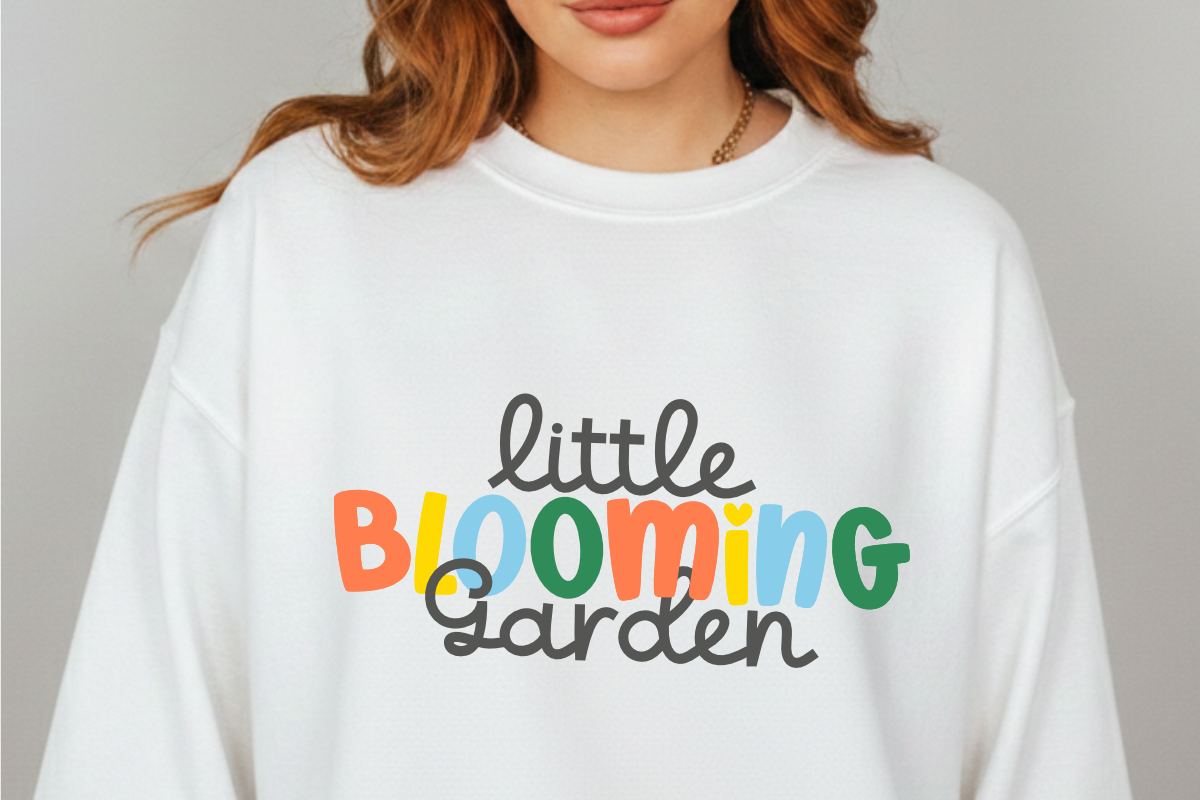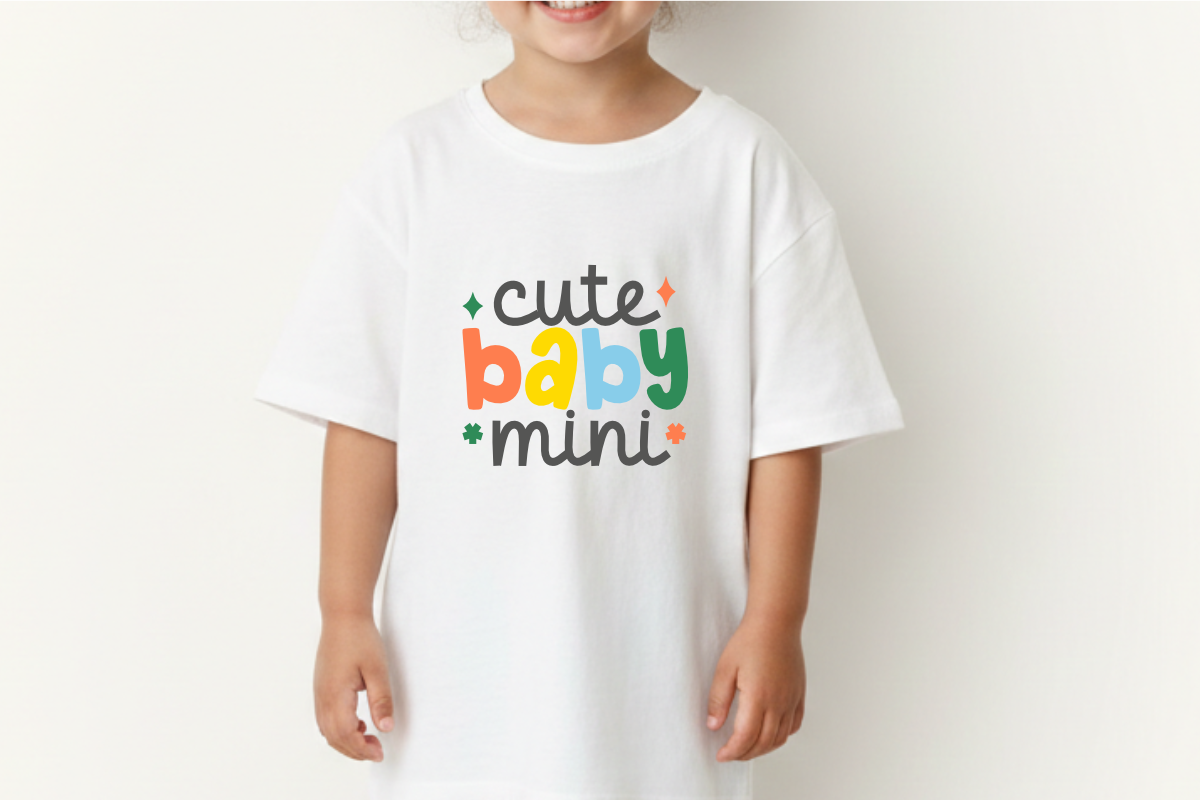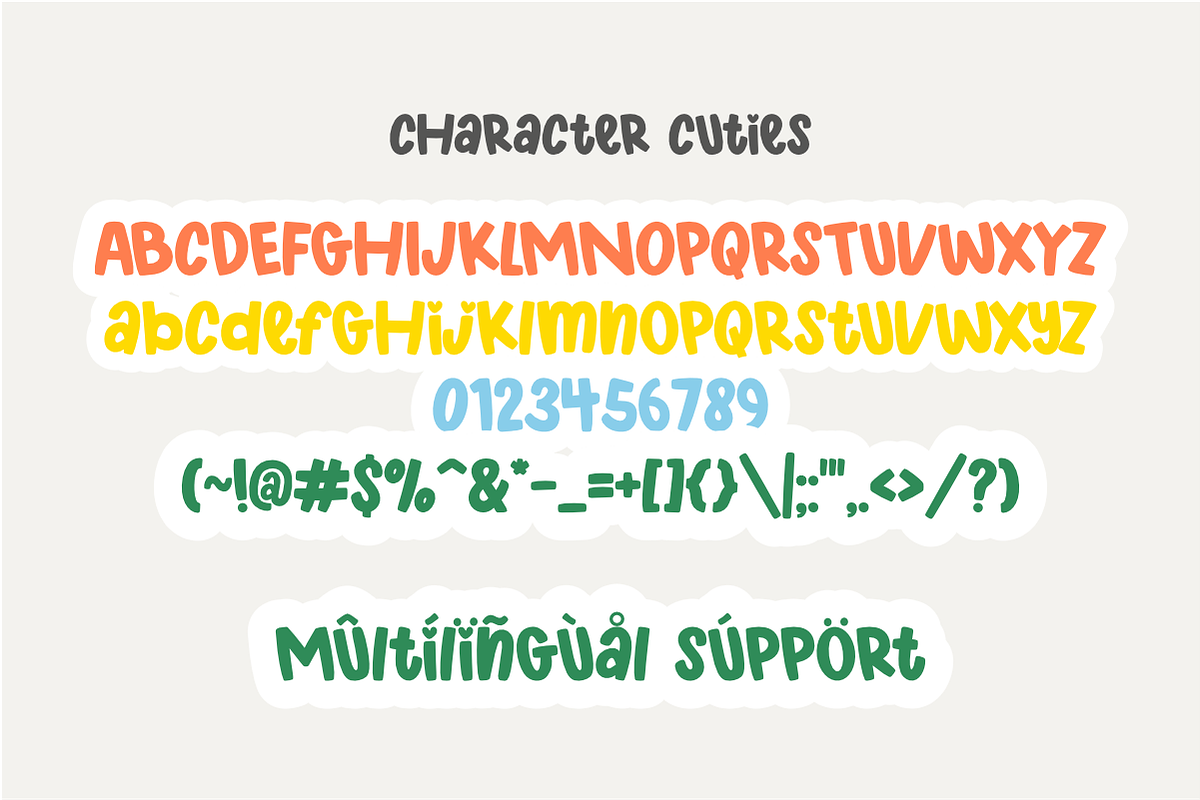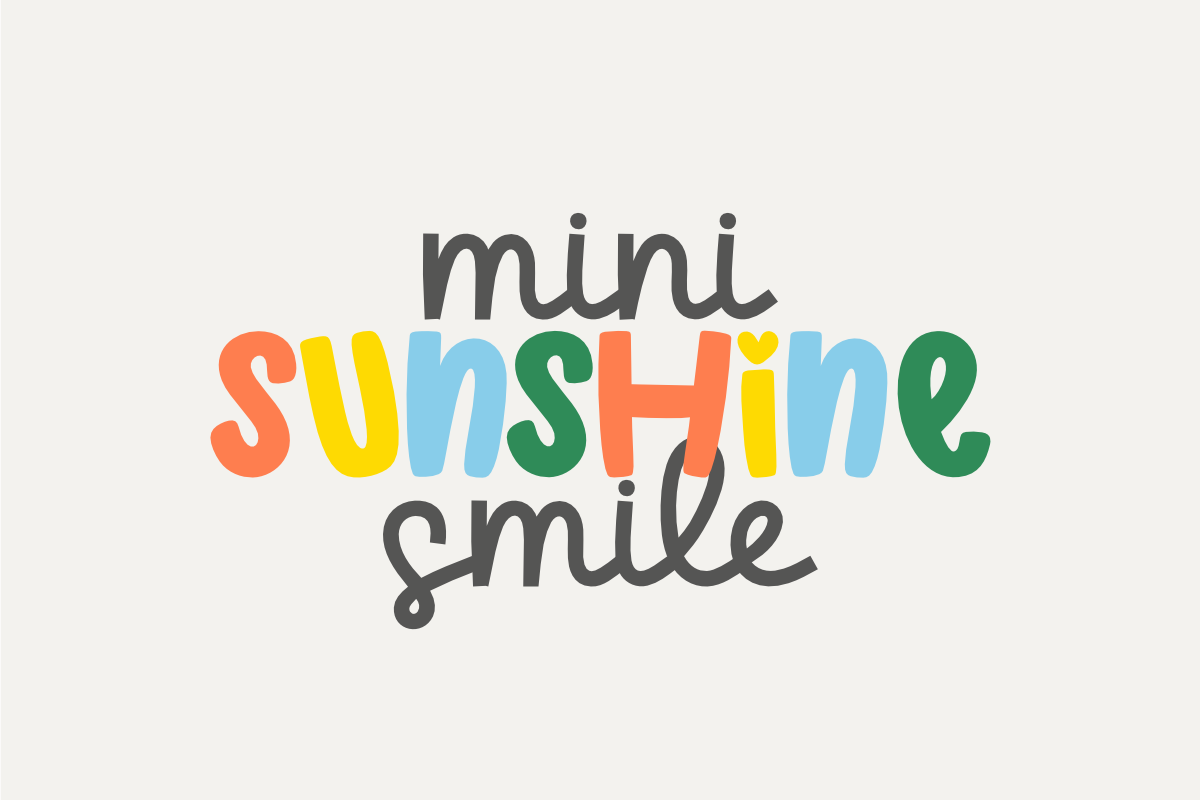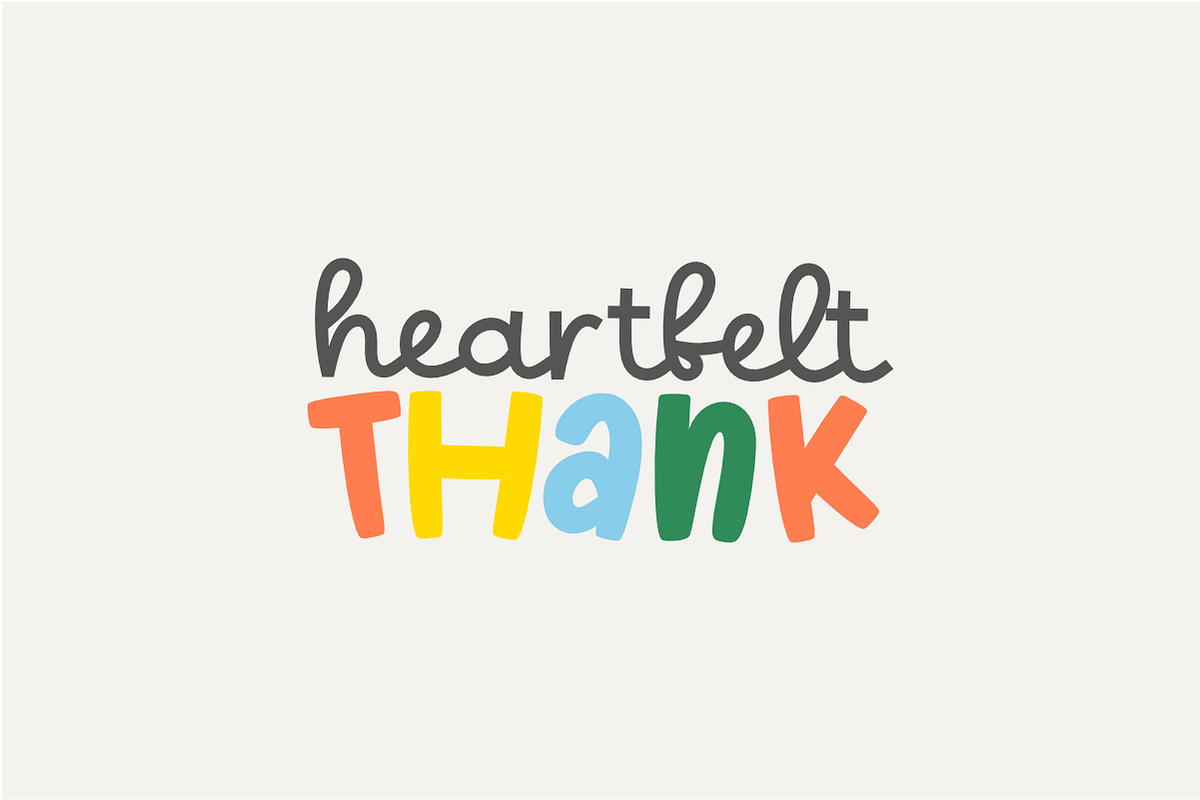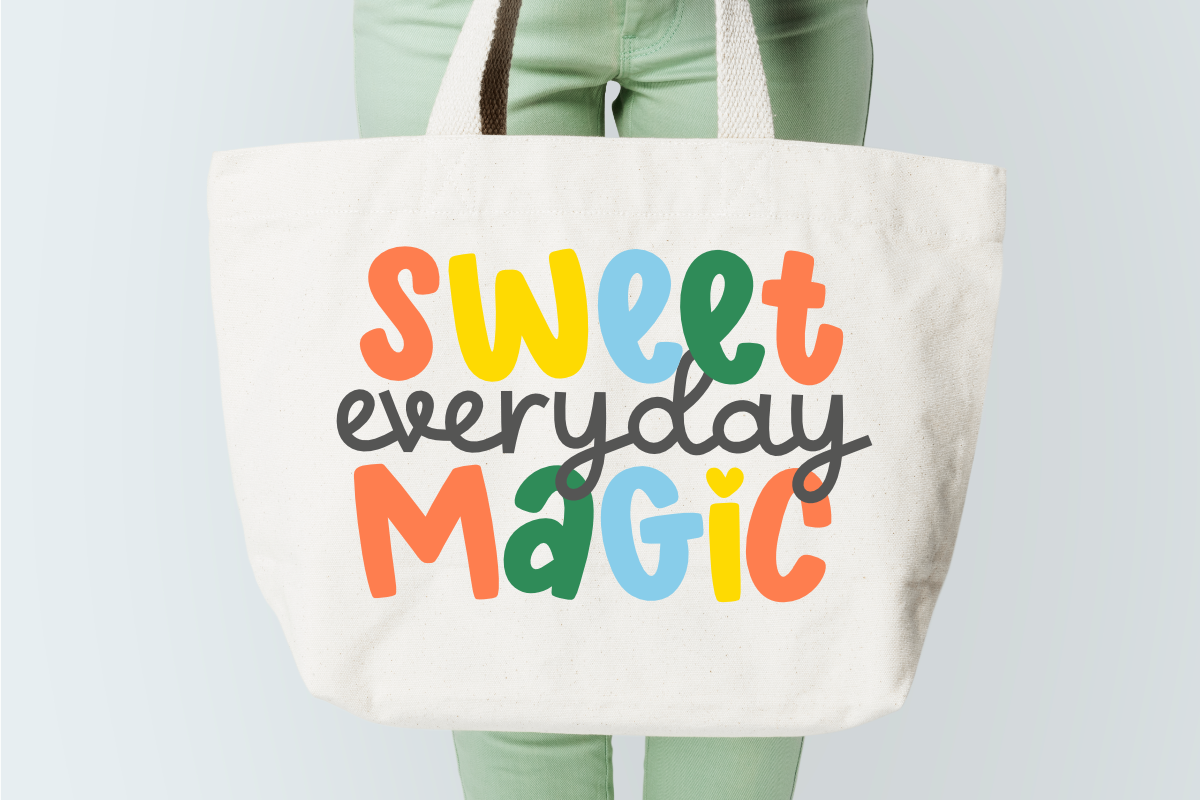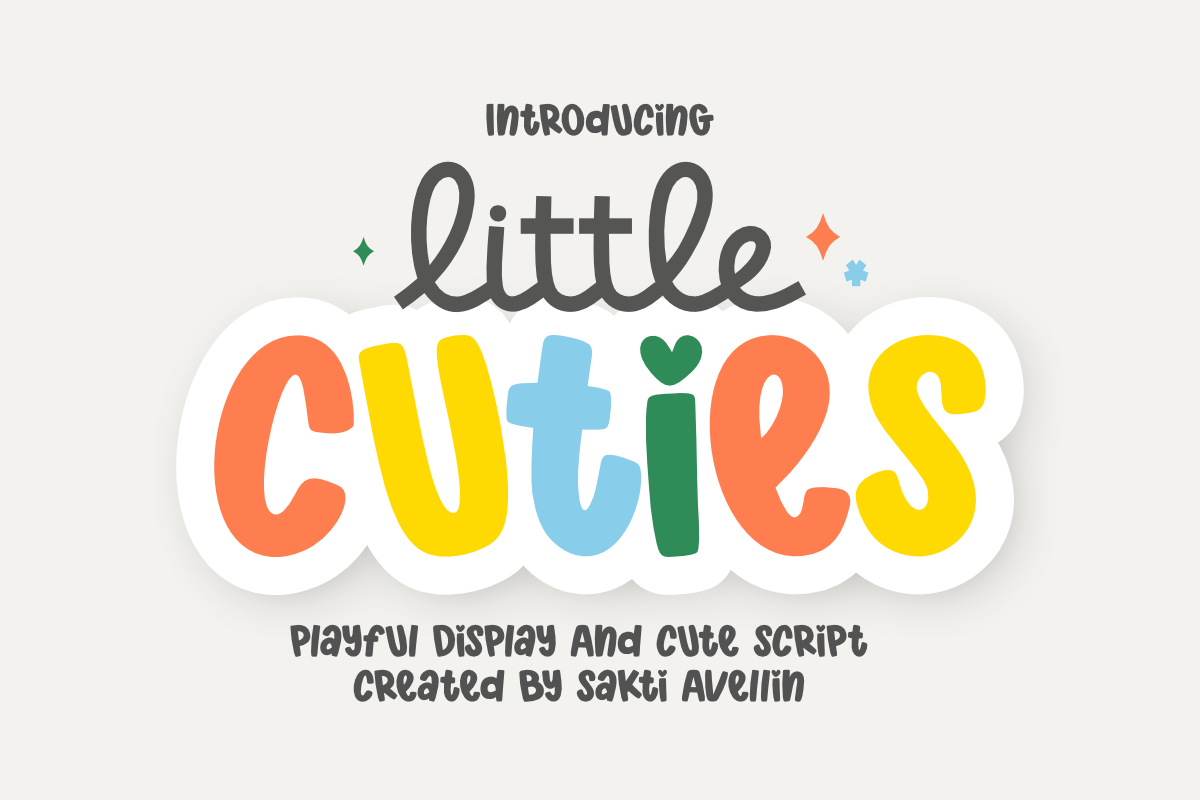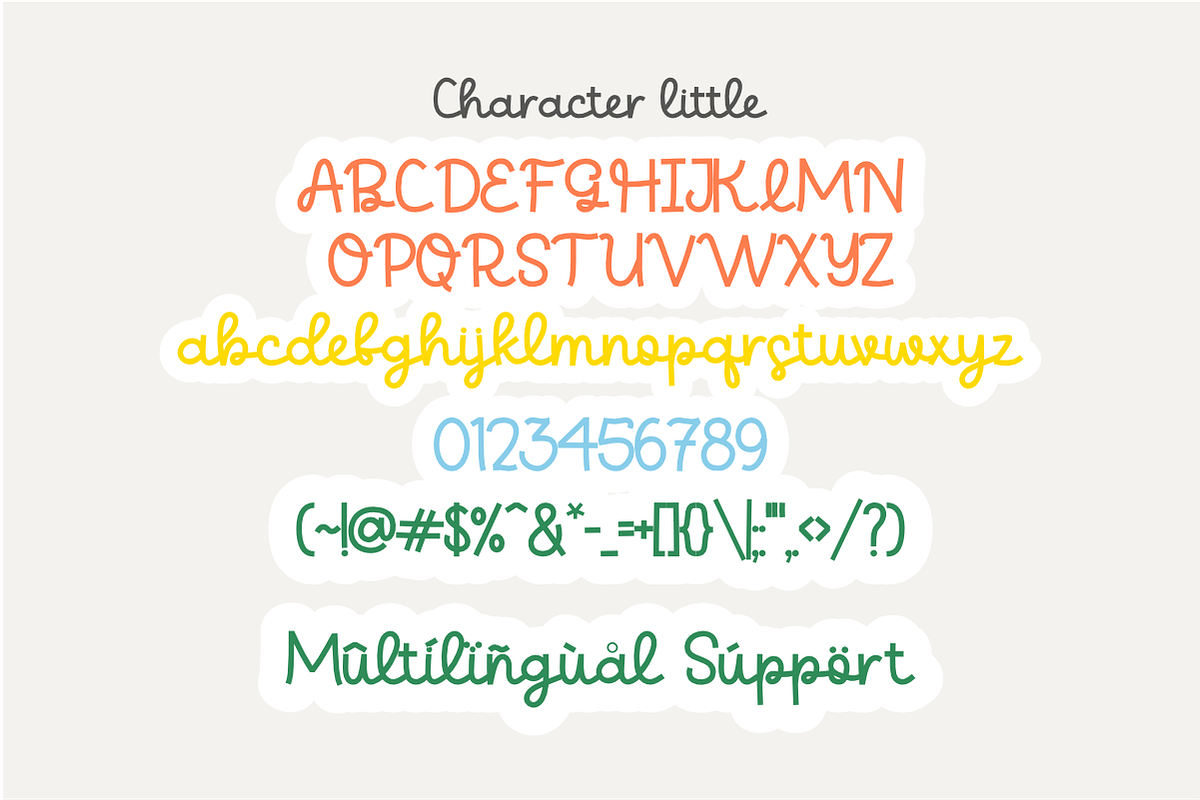
Little Cuties - Playful Display Font
Little Cuties is an engaging and versatile playful display and cute script font duo designed to bring a joyful, imaginative energy to your creative projects. This delightful pairing features a bold, bubbly display typeface for "CUTIES" and a smooth, flowing handwritten script for "little," making it an ideal choice for children's branding, colorful stickers, nursery decor, birthday invitations, and cheerful social media graphics. Its balanced and organic aesthetic ensures your designs feel warm, personal, and full of life. Whether you are creating toy packaging, whimsical apparel, or playful stationery, Little Cuties adds a lovely and handcrafted harmony to every design.